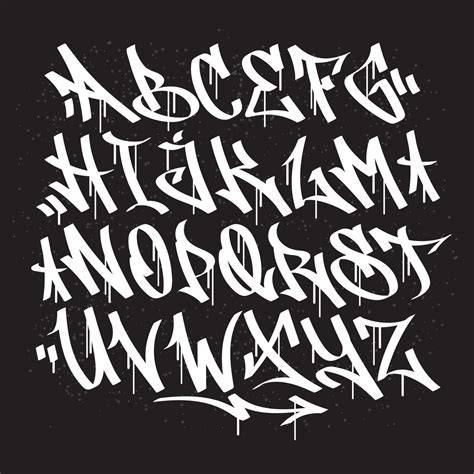
Graffiti Fonts: A Guide To The World Of Street Art
Graffiti has been around since ancient times and is a popular form of street art. It can be found in urban areas, on buildings and in many other public places. While some people may think of graffiti as an eyesore, others see it as a way to express themselves and show off their creativity. And with the right font, graffiti can be even more eye-catching and unique.
Graffiti fonts are a way to add an extra layer of creativity and style to your graffiti art. Whether you’re a graffiti artist or simply want to add a little something extra to your work, having the right font can make a big difference. There are a variety of different graffiti fonts available for you to choose from.
Choosing the Right Font
When selecting a font for your graffiti art, it’s important to consider the overall style of the piece. Different fonts can create different impressions, so you’ll want to make sure the font you choose fits with the overall aesthetic you’re trying to achieve. For example, if you’re creating a graffiti mural with a lot of detail, then a more intricate font might be better suited for the job. On the other hand, if your piece is more simplistic and minimalistic, then a simpler font may be more appropriate.
You’ll also want to think about how the font will look when you’re finished. If you’re going to be writing the graffiti from a distance, then you’ll want to make sure the font is bold and easy to read. If you’re going to be writing small details or intricate designs, then a more delicate font may be better suited for the job.
Different Types of Graffiti Fonts
There are a variety of different fonts available for graffiti artists to choose from. Some of the most popular fonts include: script fonts, block fonts, cartoon fonts, brush fonts and stencil fonts. Script fonts are often used to create a more stylish or sophisticated look, while block fonts are typically used to create a bolder statement. Cartoon fonts are often used to create a humorous or whimsical look, whereas brush fonts are often used for a more organic and natural look. Stencil fonts are often used for a more technical or precise look.
No matter which font you choose, it’s important to make sure it fits in with the rest of your graffiti art. The right font can make a big difference in the overall aesthetic of your work, so take your time in choosing the best one for your project.